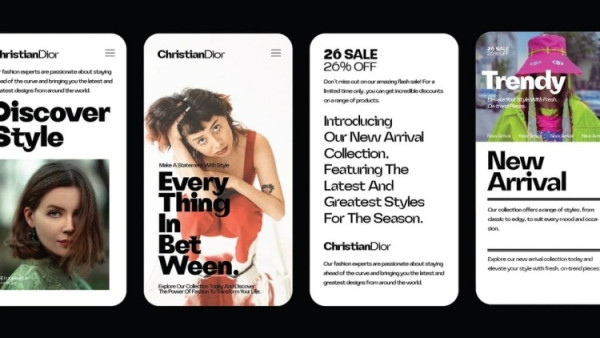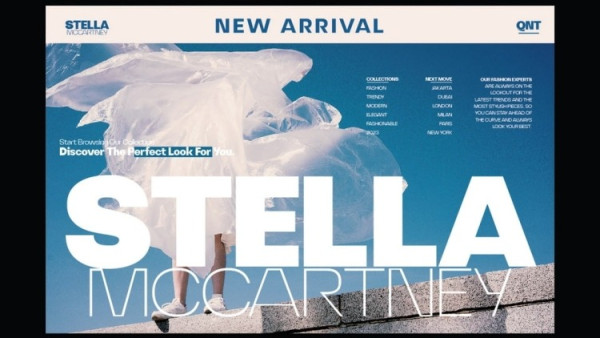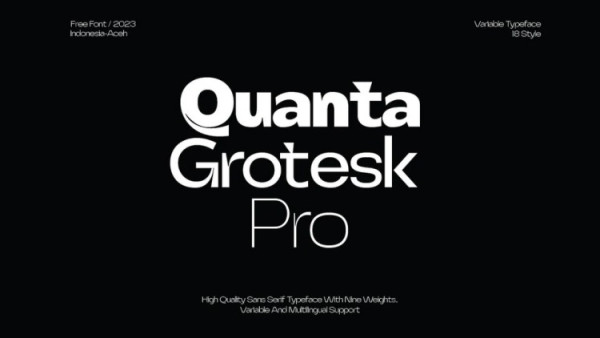
Quanta Grotesk Pro Font
Quanta Grotesk Pro Font is a modern and versatile variable font designed to meet the needs of contemporary typography. With its sleek and elegant design, this font is neutral design and subtle character suit diverse projects, from branding and advertising to editorial and product design.
The font family comes with nine different weights, ranging from the thin regular to the Black. Each weight has its unique character, making it easy to find the perfect style for any project.
One of the most impressive features of Quanta Grotesk Pro is its flexibility as a variable font. The font’s variable axis allows for continuous variation in weight, width, and slant, giving users unparalleled control over the design and look of their typography.
Overall, Quanta Grotesk Pro is a stunning and versatile font family that offers exceptional design possibilities. Whether you’re a graphic designer, web developer, or typographer, this font is a must-have for your toolkit.